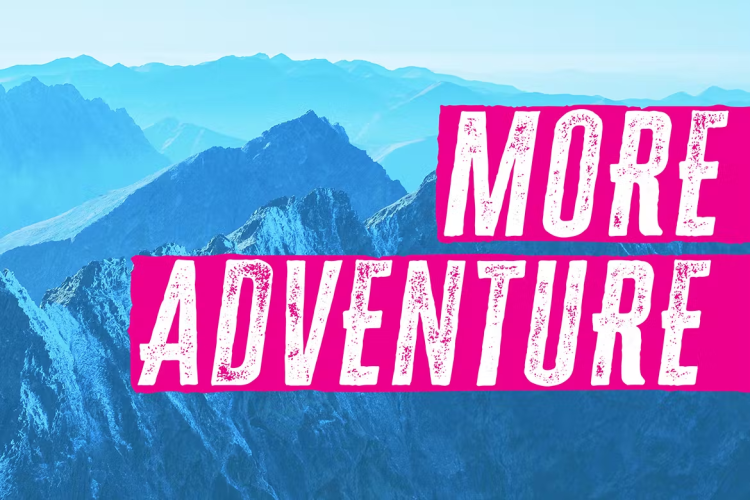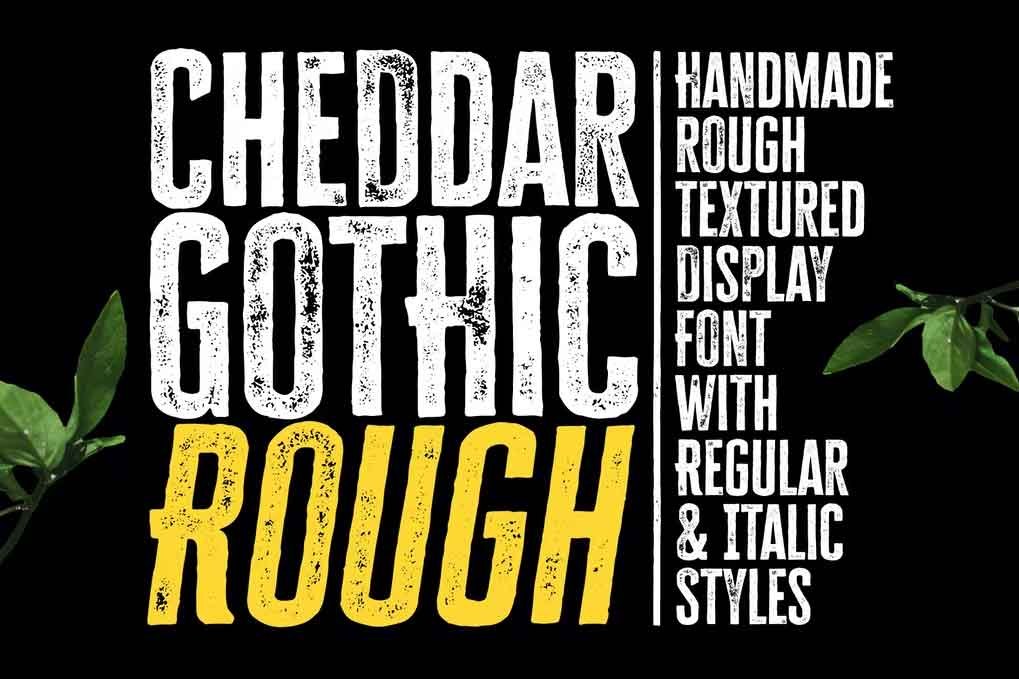
Cheddar Gothic Rough Font
Cheddar Gothic Rough is a hand-drawn, textured display font with regular and italic styles. An all-caps, sans serif typeface with condensed proportions that works great…
Cheddar Gothic Rough is a hand-drawn, textured display font with regular and italic styles. An all-caps, sans serif typeface with condensed proportions that works great for a variety of display uses. The uppercase characters add distinction with extended crossbars and chiseled terminals, while the lowercase provides a more classic sans serif appearance.
Carefully drawn for quality and readability, but still rough enough to exhibit the handmade details. Cheddar Gothic Rough is great for display, branding, packaging, advertising, food, sports, titles, and more.
This font is the textured version of the Sans family within the larger Cheddar Gothic font family (which includes Sans, Serif, Slab, and Stencil styles).
Cheddar Gothic Rough Font is a Sans Serif Fonts typeface tagged Classic, Condensed, Display, Handwritten. It works well for headlines, logos, posters, social media graphics and branding projects that need a distinctive sans serif fonts look.